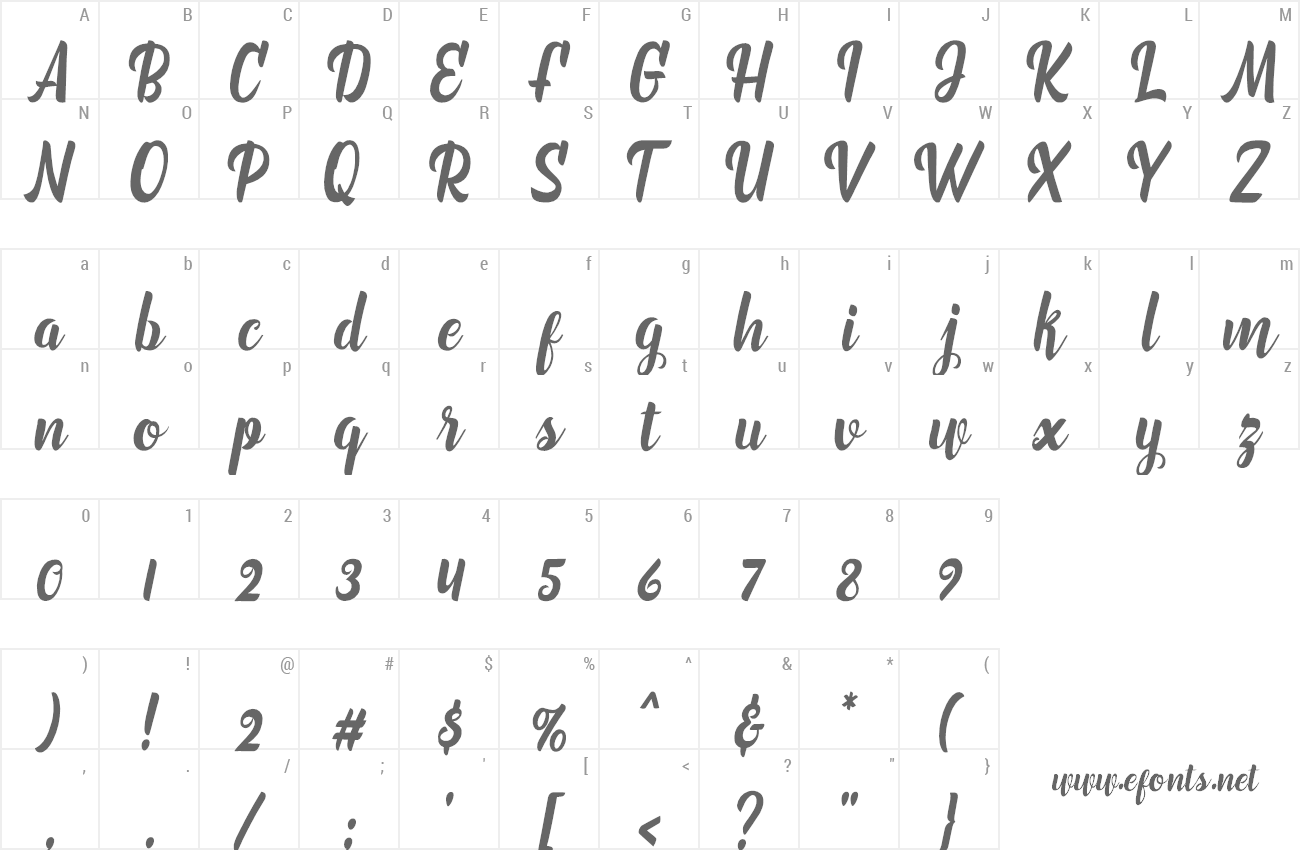
| Font name: | Marchelina Script |
| Author: | Cotbada Studio |
| Note by Cotbada Studio | |
Marchelina Script Font, a handmade font awesome, new fresh & modern script with a calligraphy style. Can used for anything from promotional material and handwritten quotes, to product packaging, labels,logo newsletters, posters, merchandise and branding projects Note: This is free for personal use only. For Commercial use : https://crmrkt.com/GKKmJp Donate Paypal: isfanicolas.aceh@gmail.com |